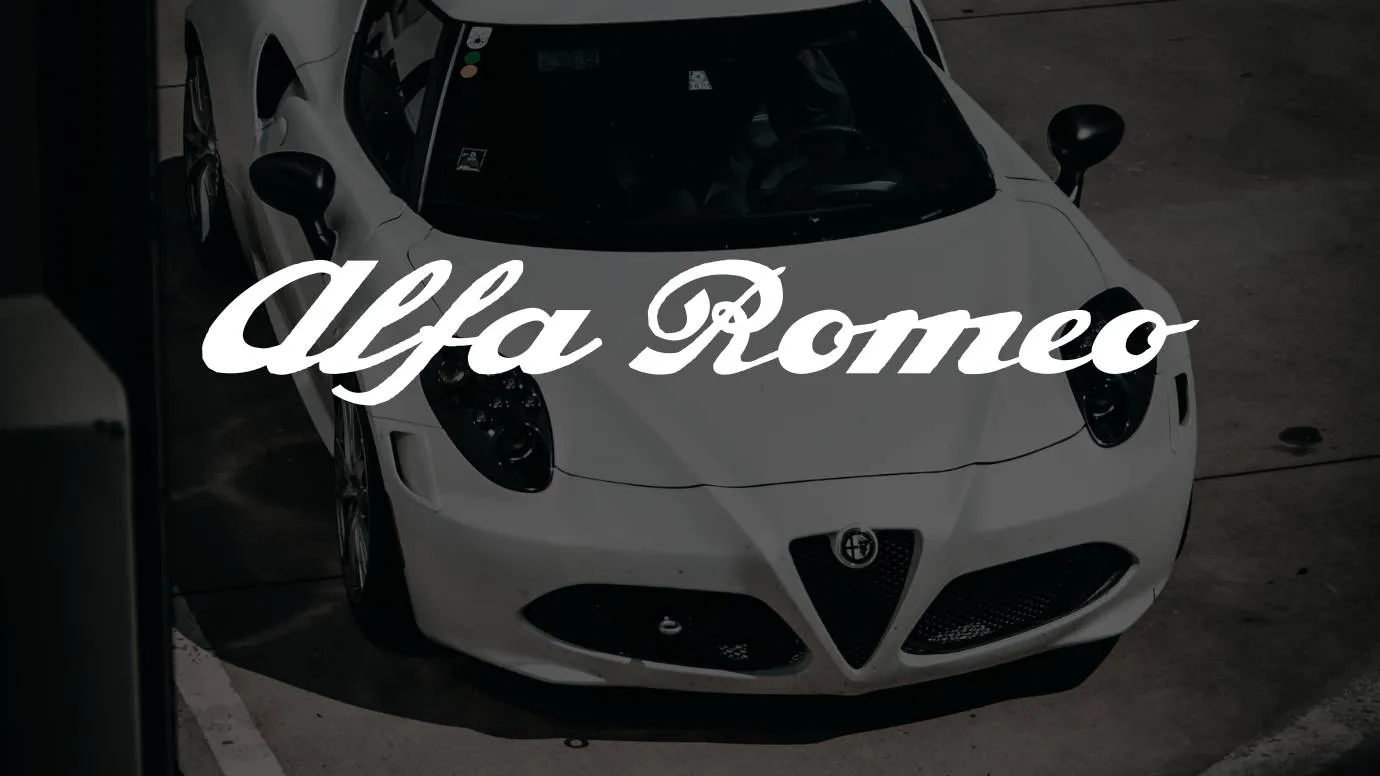
Alfa Romeo Font Family is a logo-based font designed for an Italian Car manufacturing company that was founded in the year 1910. The Bold display characters of this typeface make it perfect for headlines and other projects.
The main and original creator of this typeface was djeddy studio. In order to use this typeface for graphic designs you will have to check the generator tool of this font family.
| Name | Alfa Romeo Font |
| Type | Logo |
| Designer | djeddy studio |